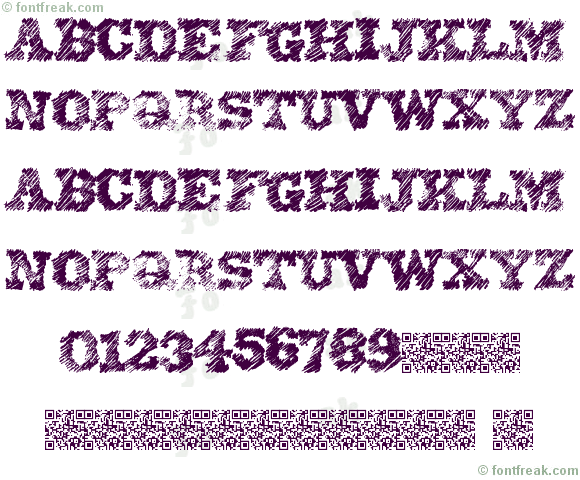
EightyOne
The EightyOne font by Xerographer Fonts is a distinctive display typeface that captures attention with its unique visual style. Released in 2015, this font features a textured, hand-drawn appearance that gives it an organic, artisanal feel. The stroke weight varies throughout the characters, creating an engaging contrast that enhances its visual appeal. The irregularities in line thickness and the rough edges lend a sense of authenticity, making it suitable for a variety of creative applications. The spacing between letters is thoughtfully designed to ensure readability while maintaining the font's artistic flair.
EightyOne is particularly well-suited for use in wedding invitations, where its charming and informal look can add a personal touch. It also shines in the design of movie posters, offering a bold statement that captures the essence of the film. Additionally, restaurant menus can benefit from the font’s inviting character, making it a great choice for eateries looking to convey a warm atmosphere. Small business owners and content creators will find EightyOne to be an excellent choice for branding materials, social media graphics, and promotional content, as it conveys a sense of creativity and approachability.
The target audience for the EightyOne font includes graphic designers seeking to infuse their projects with a unique personality, as well as small business owners looking to differentiate their brand in a crowded marketplace. Content creators can leverage this font to enhance their visual storytelling.
What sets the EightyOne font apart is its ability to blend artistic expression with functionality, making it accessible for various design projects. For those interested in exploring its potential, the EightyOne font free download offers an excellent opportunity to incorporate this engaging typeface into your creative toolkit.